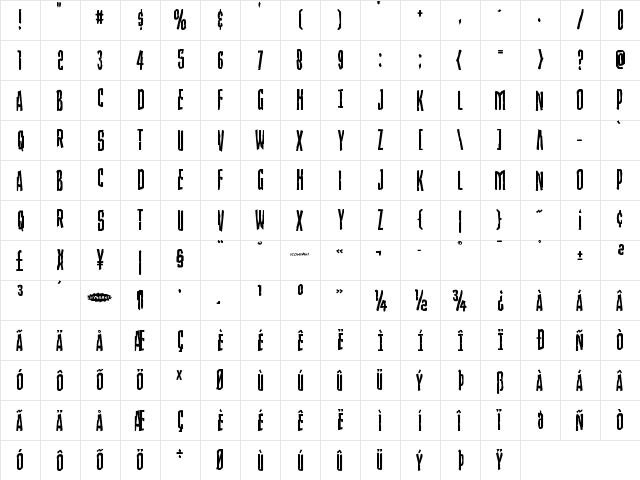
Stranger Danger Regular
Regular ·  Daniel Zadorozny ·
DesignerDaniel Zadorozny
Design Context for Stranger Danger Typeface
Stranger Danger is a composed and adaptable typeface that performs quietly and consistently across a wide range of design contexts.